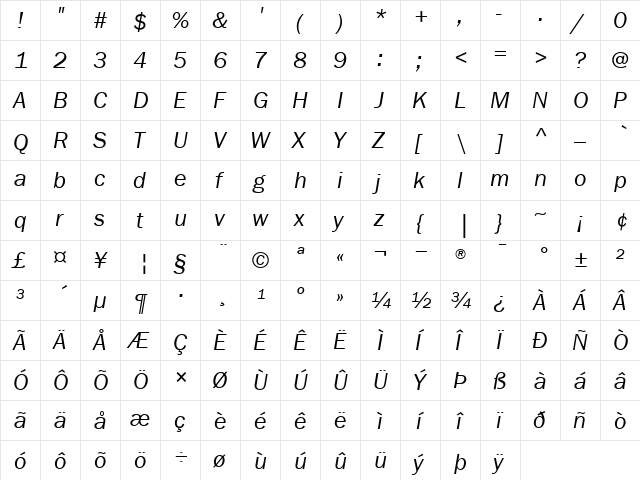
ITCFranklinGothic-Book BookItalic Font Preview
ITCFranklinGothic-Book BookItalic
Design Context for ITCFranklinGothic-Book Typeface
ITCFranklinGothic-Book has the quiet confidence of well-executed sans-serif typography: versatile, unobtrusive, and dependable at any size. Its italic angle brings a sense of urgency and motion to the letterforms.
Font Pairing: Works well alongside a characterful serif or display font that can carry the expressive load while ITCFranklinGothic-Book handles the functional copy.
Pro Tip: Use ITCFranklinGothic-Book for UI labels, navigation, and short-form body copy where clean legibility is the priority.